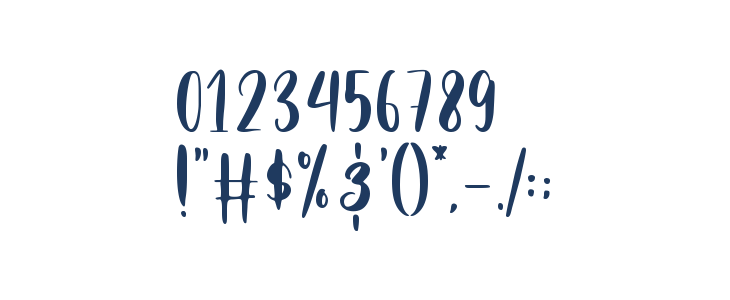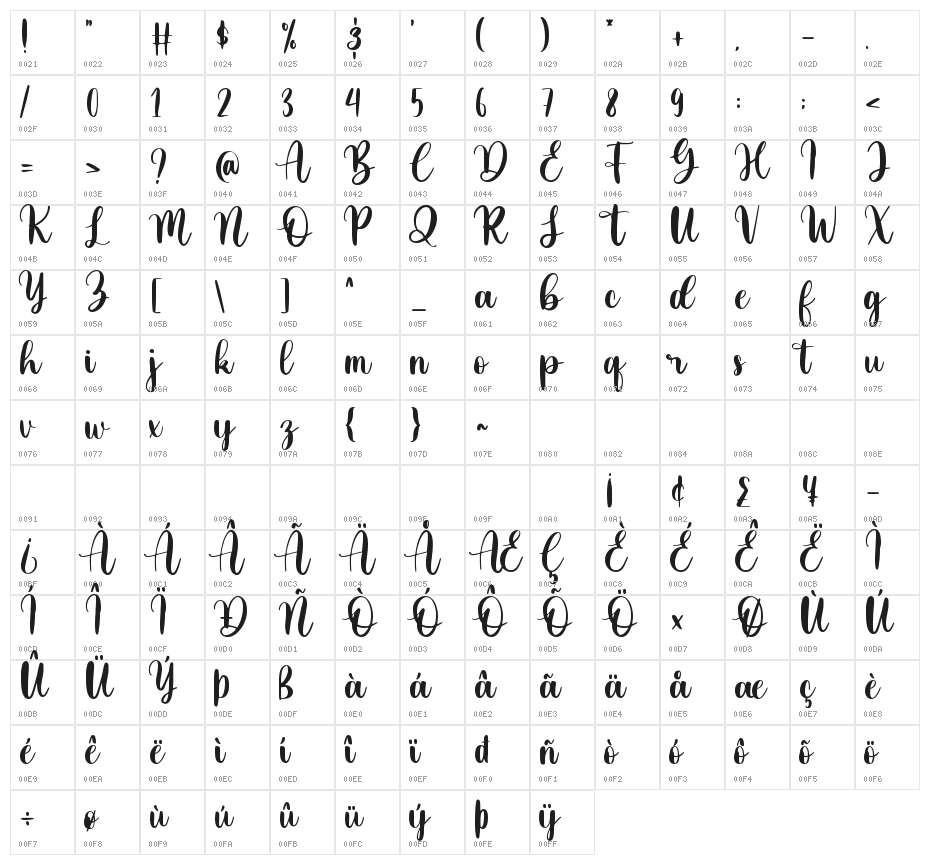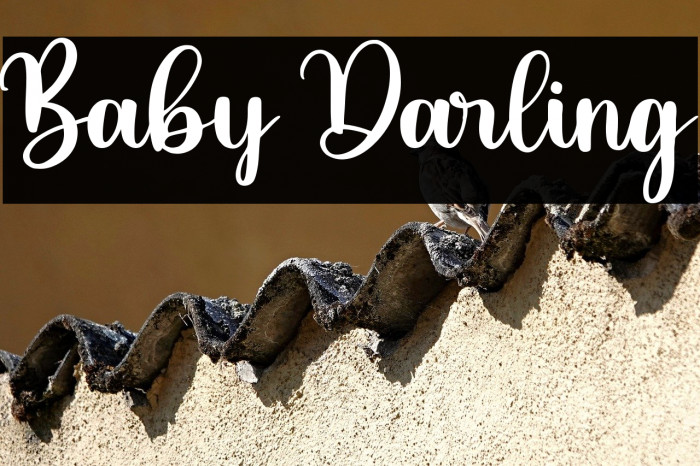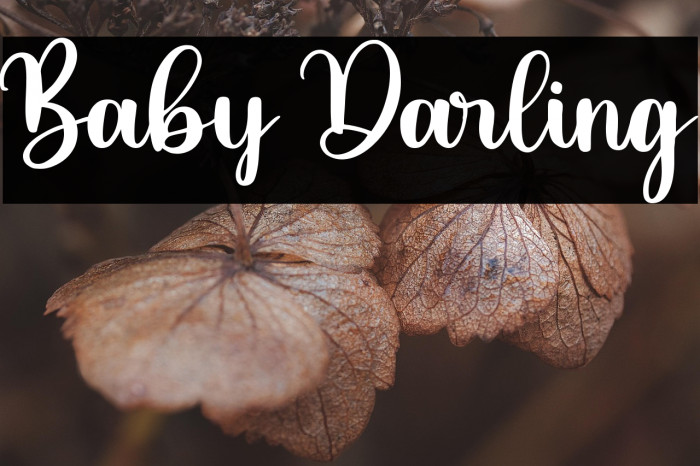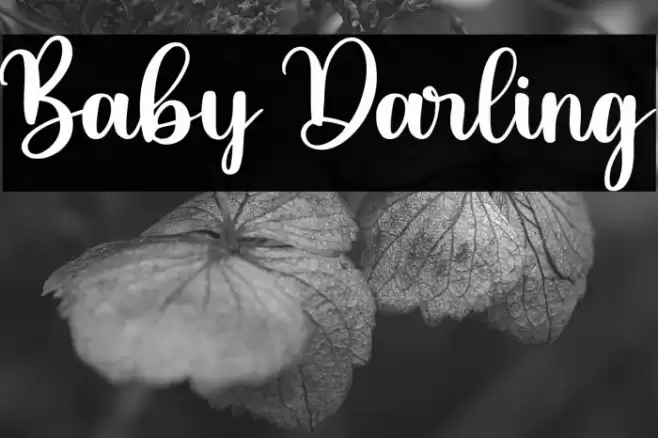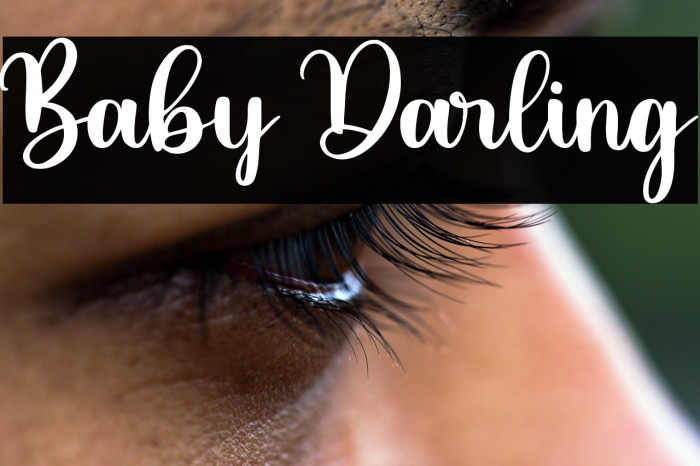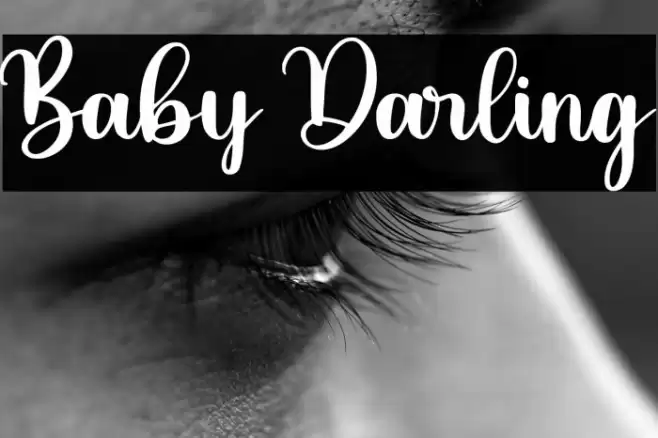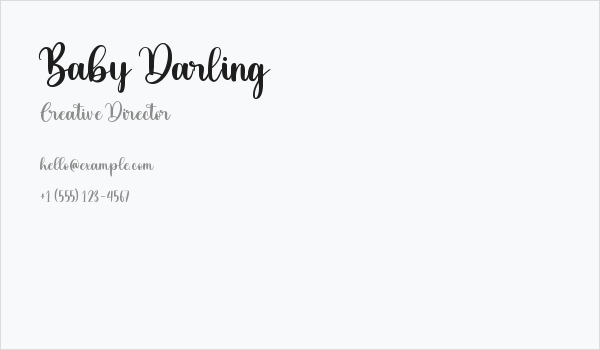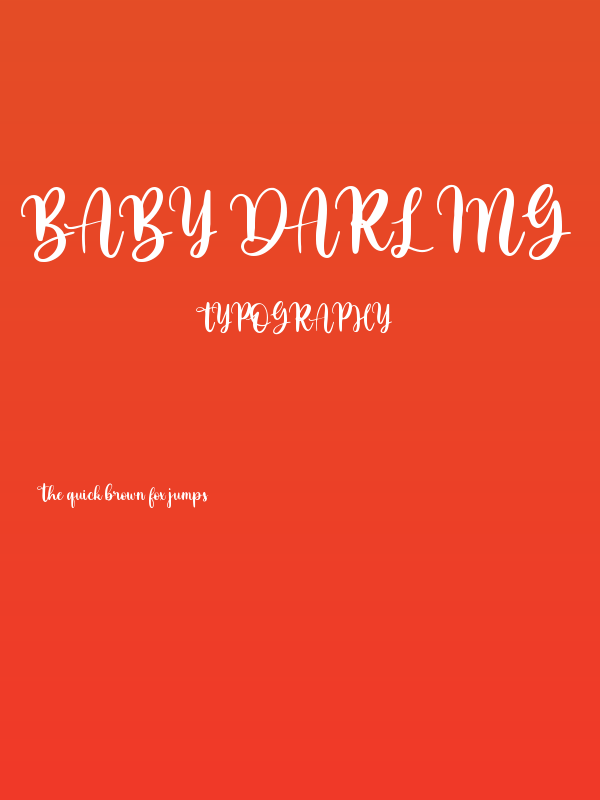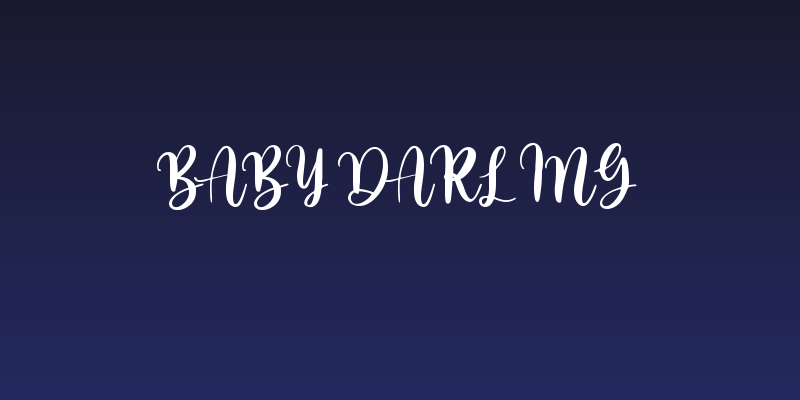
Baby Darling Font
Baby Darling Description
This font features a playful and elegant script style with a handwritten appearance. The letters are connected, giving it a fluid and continuous look, which is characteristic of cursive fonts. The uppercase letters are bold and slightly larger than the lowercase, which are more rounded and compact. The numbers and special characters maintain the same playful style, with a consistent stroke width that adds to its charm. The overall appearance is both modern and whimsical, making it suitable for a variety of creative projects.
| Proposed Projects | Ideal for wedding invitations, greeting cards, branding, and social media graphics. |